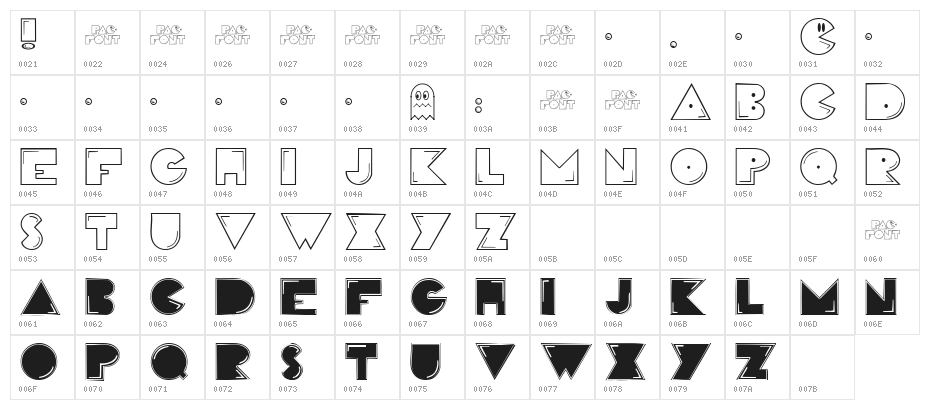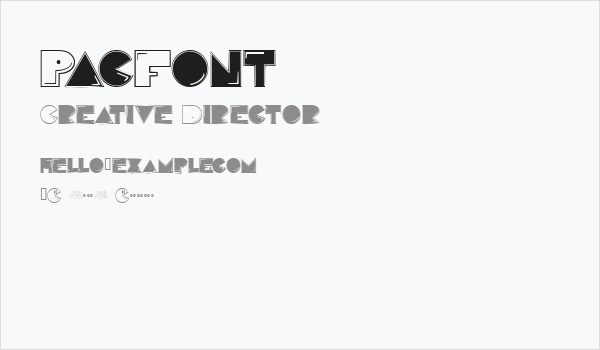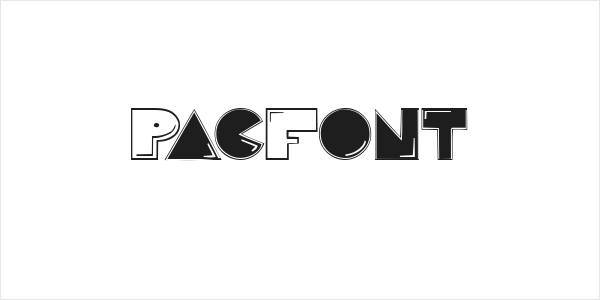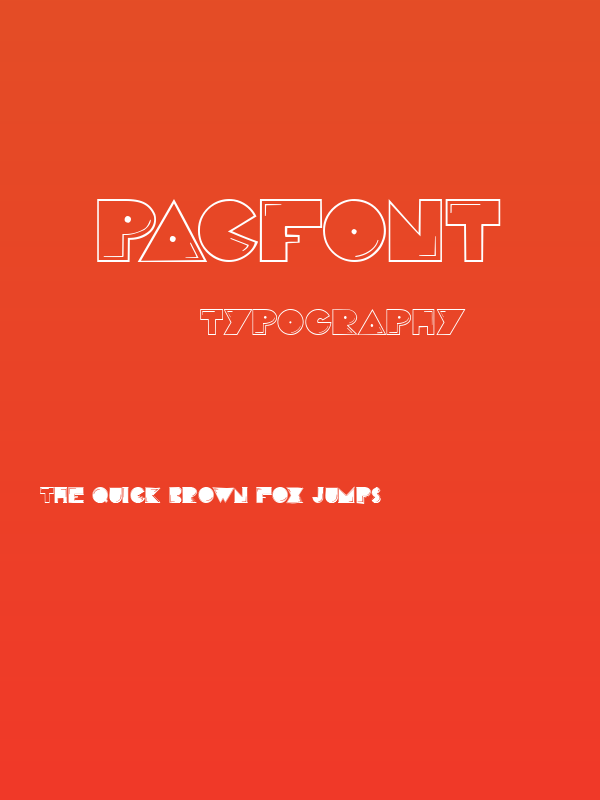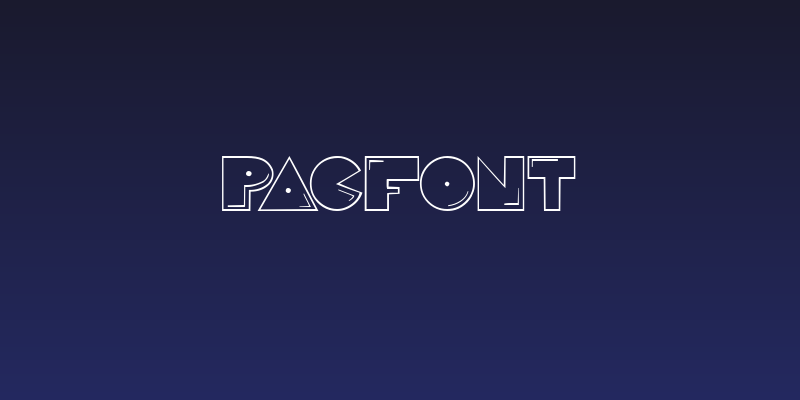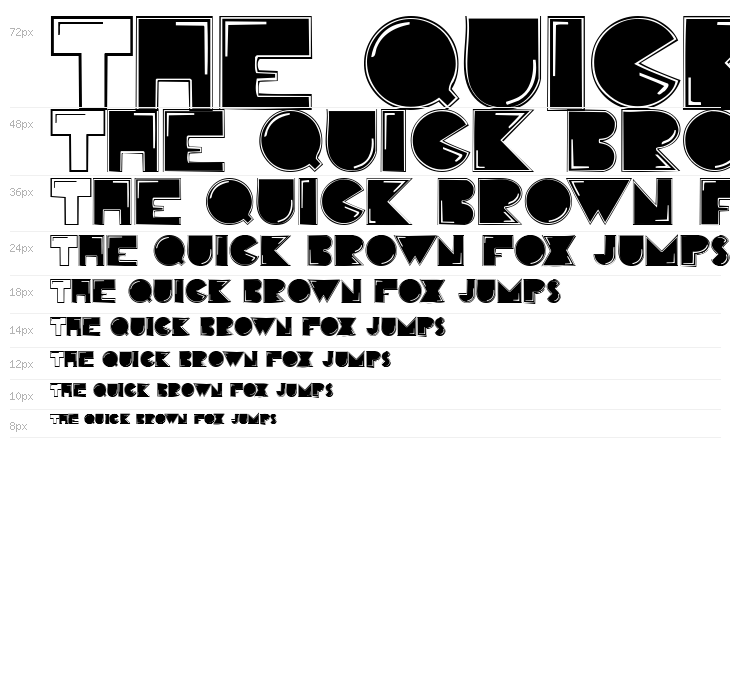
PacFont Font
This font features a playful and nostalgic design inspired by classic arcade games. The uppercase letters are bold and geometric, with a mix of sharp angles and smooth curves that evoke a sense of movement and excitement. The characters are outlined, adding a dynamic and eye-catching effect. The font includes unique elements such as a Pac-Man character and ghost, enhancing its retro gaming theme. The overall style is decorative and fun, making it ideal for projects that aim to capture a vintage gaming aesthetic.
| Overall Style | Vintage |
| Use Case | Logos, Posters, Headlines |
| Proposed Projects | Ideal for video game designs, retro-themed posters, event flyers, and playful branding projects. |